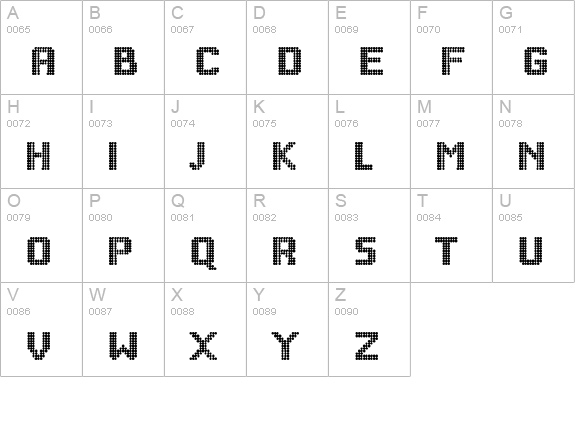
BigDots Font Details
BigDots font is a versatile and eye-catching typeface that is perfect for adding a touch of playfulness and creativity to your designs. Featuring bold dots as the main design element, this font is sure to make a statement and stand out. Whether you are creating posters, invitations, or branding materials, BigDots font will add a fun and modern twist to your projects. Best of all, BigDots font is completely free to download at FontsMarket.com. So go ahead and unleash your creativity with this unique and exciting font that is sure to make a bold impact on your designs.